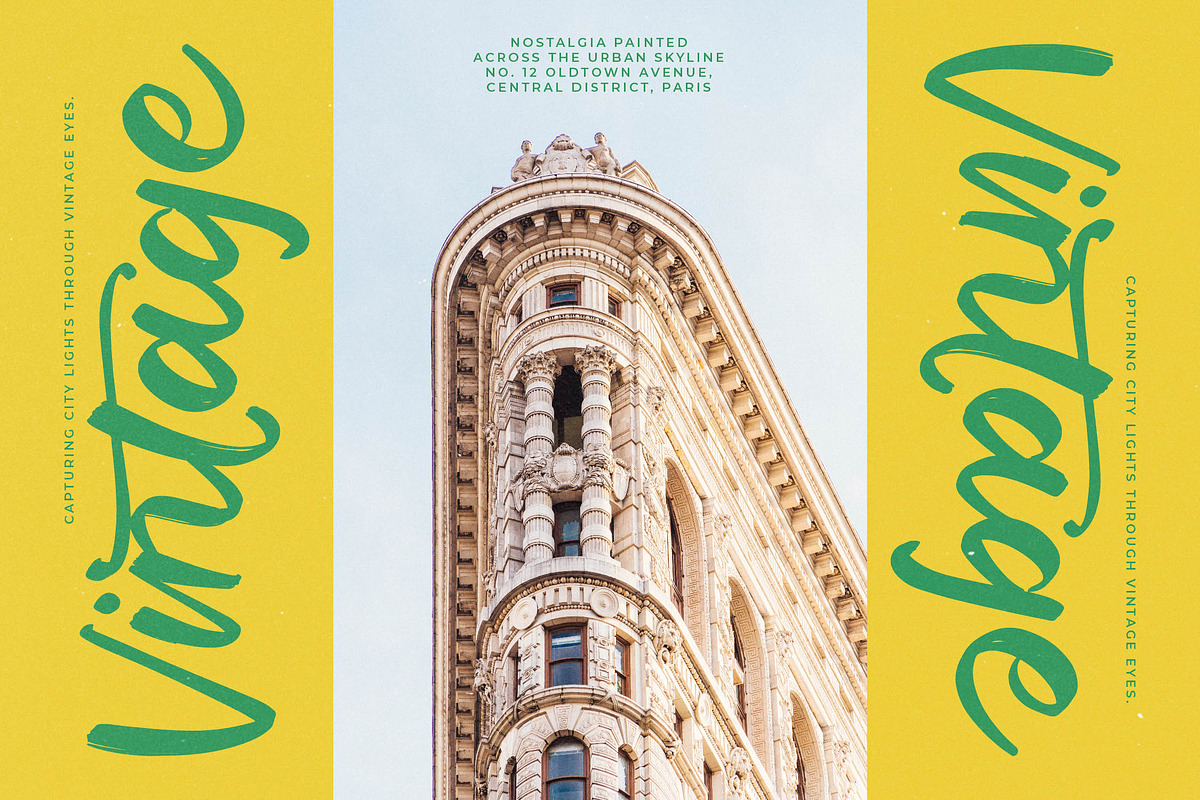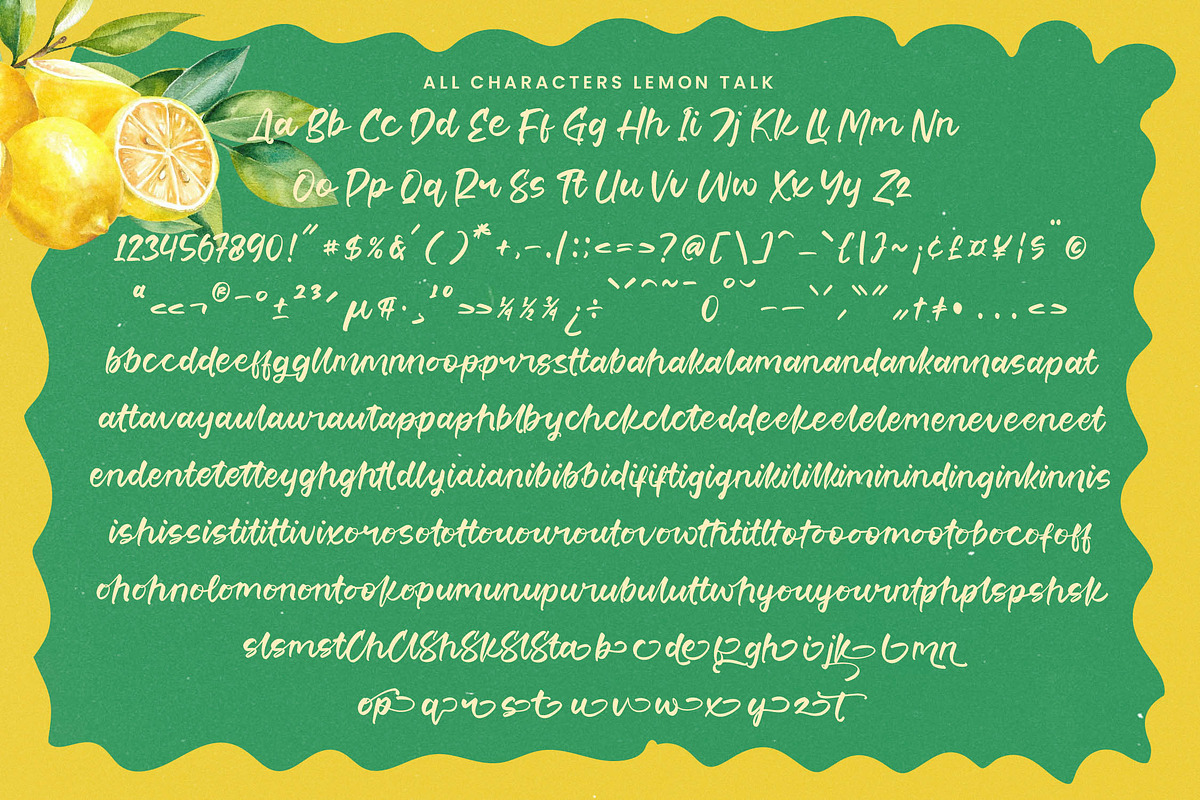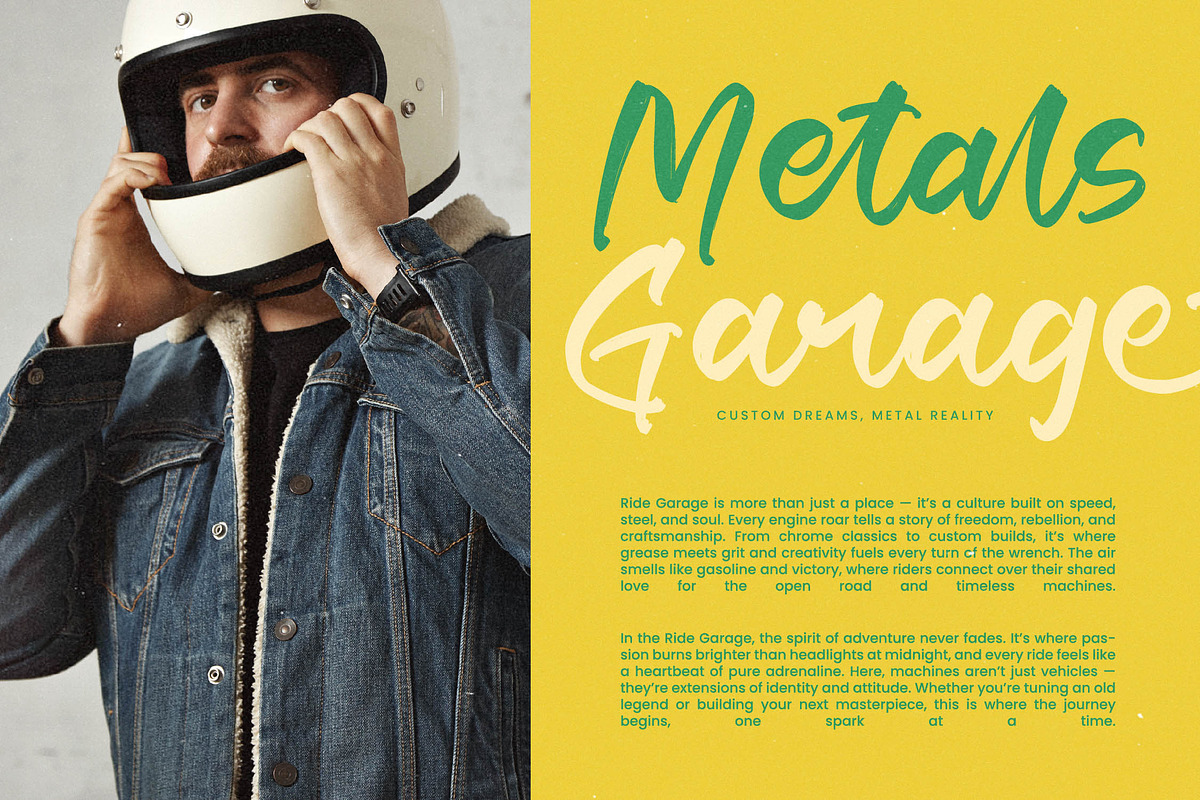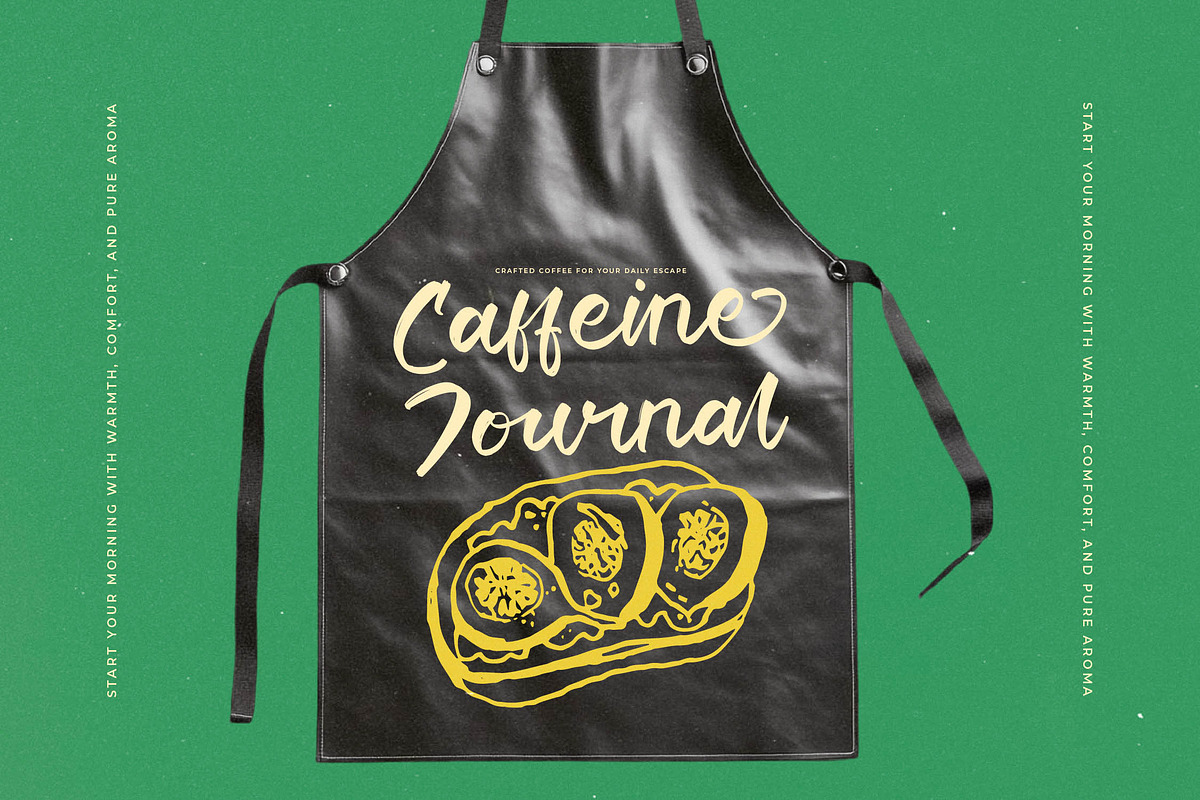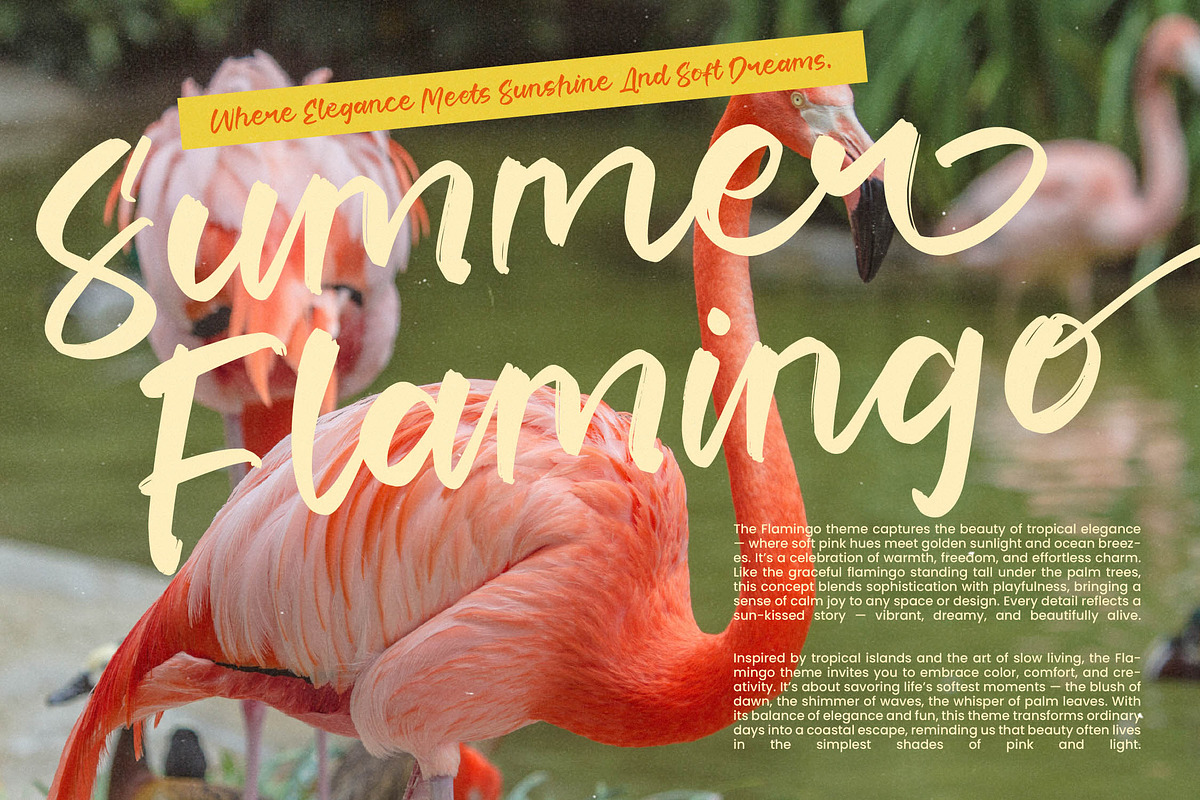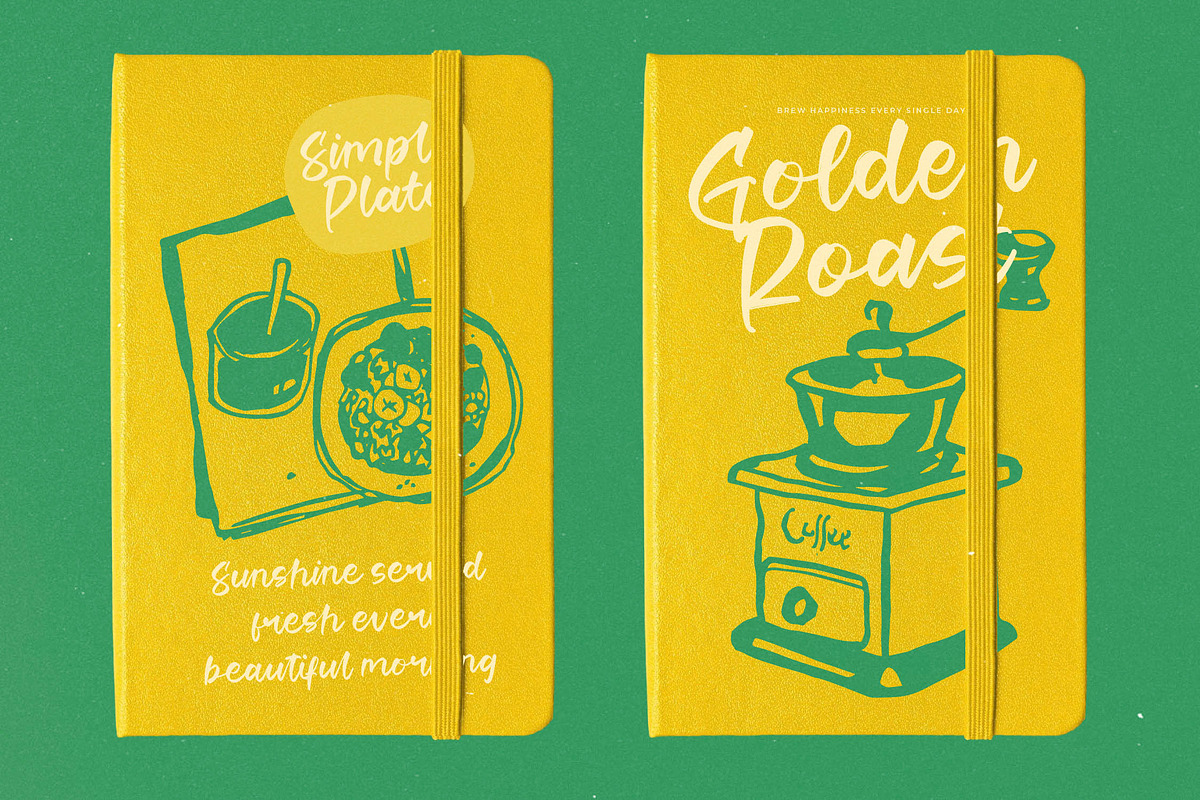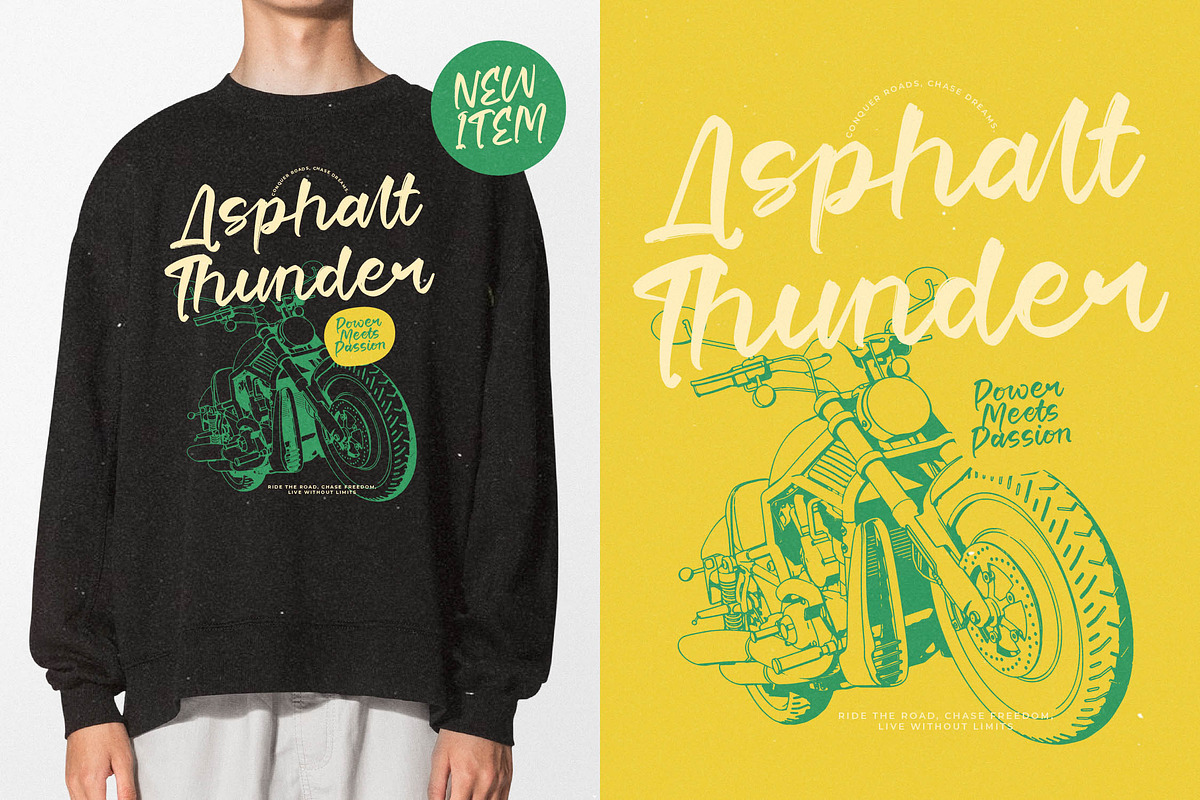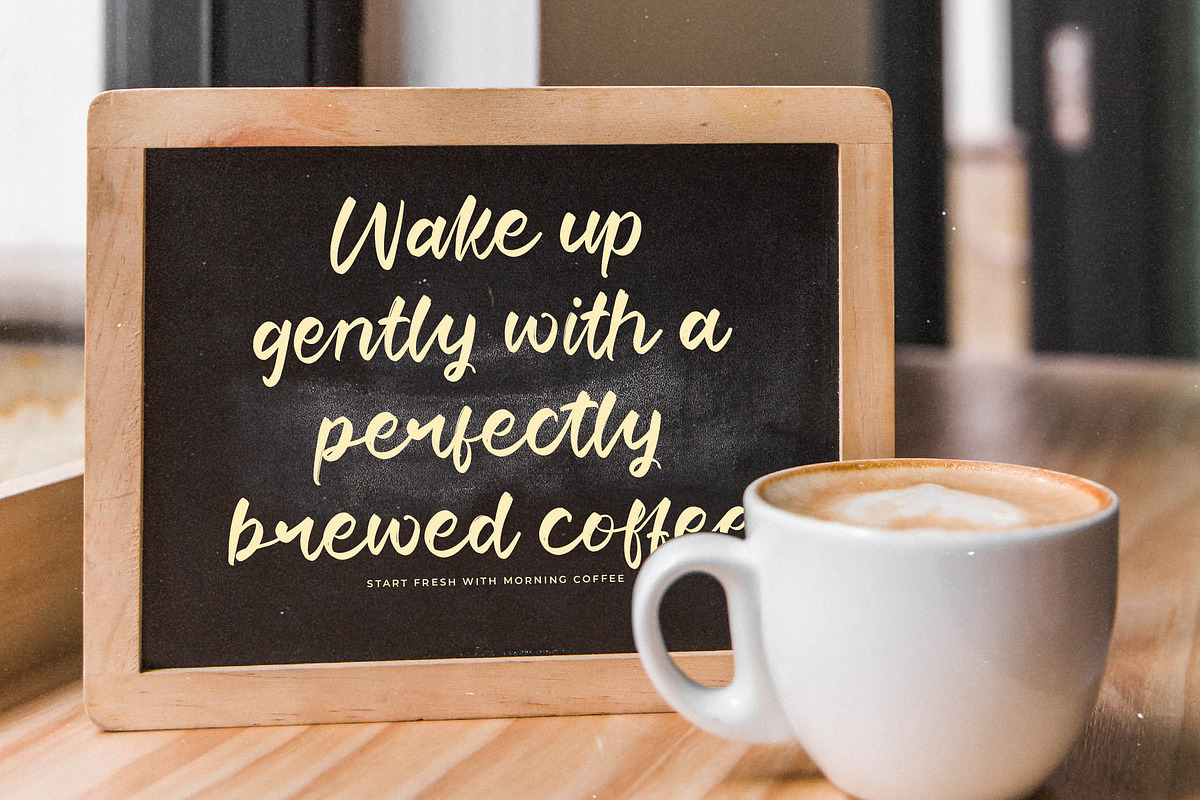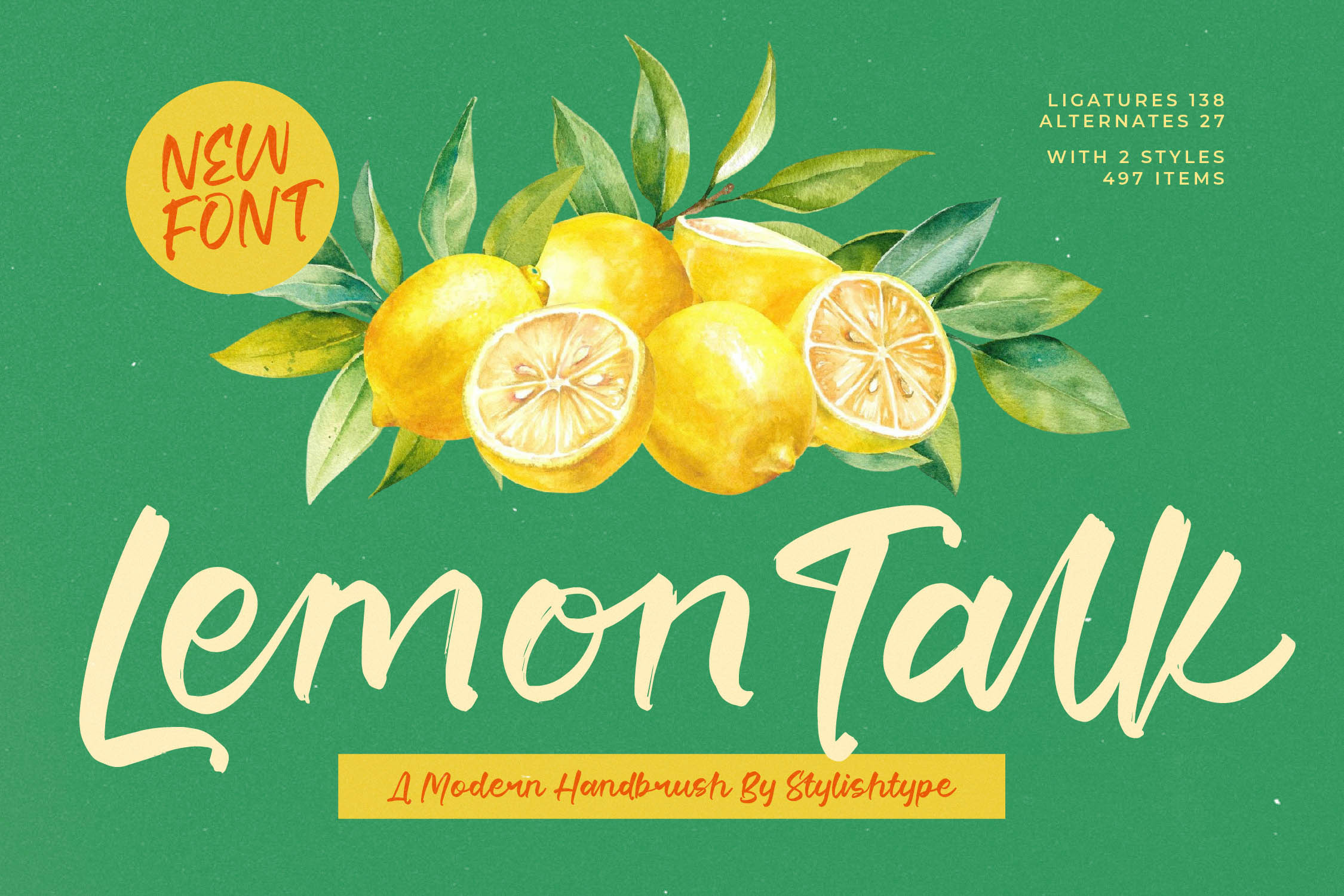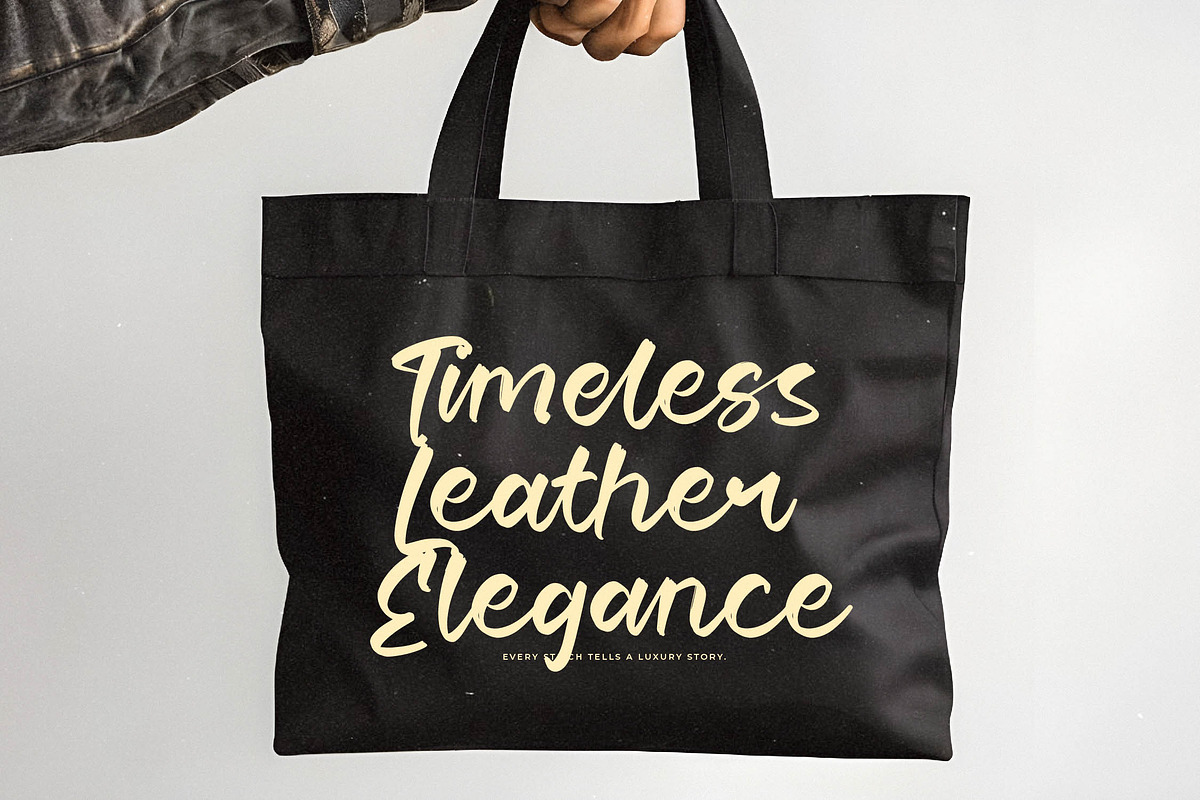
Lemon Talk Modern Handbrush Font
Lemon Talk - Modern Handbrush Font ,Lemon Talk is a modern handbrush font with a fresh, lively, and natural look. Featuring 138 ligatures and 27 alternates across two styles, this font captures the energy of hand-painted strokes, making it ideal for logos, packaging, posters, and social media graphics. With its organic texture and friendly flow, Lemon Talk adds a cheerful and creative touch — perfect for projects that want to express warmth and positivity.